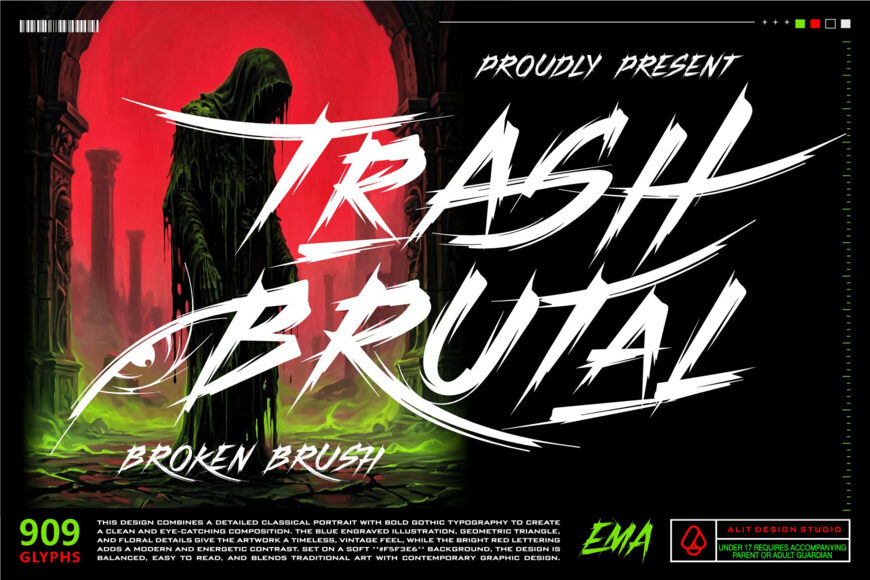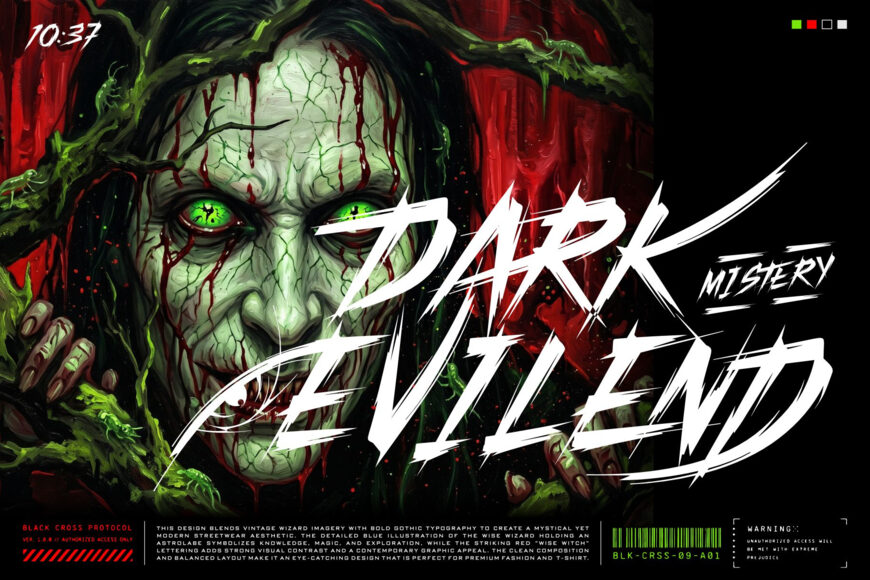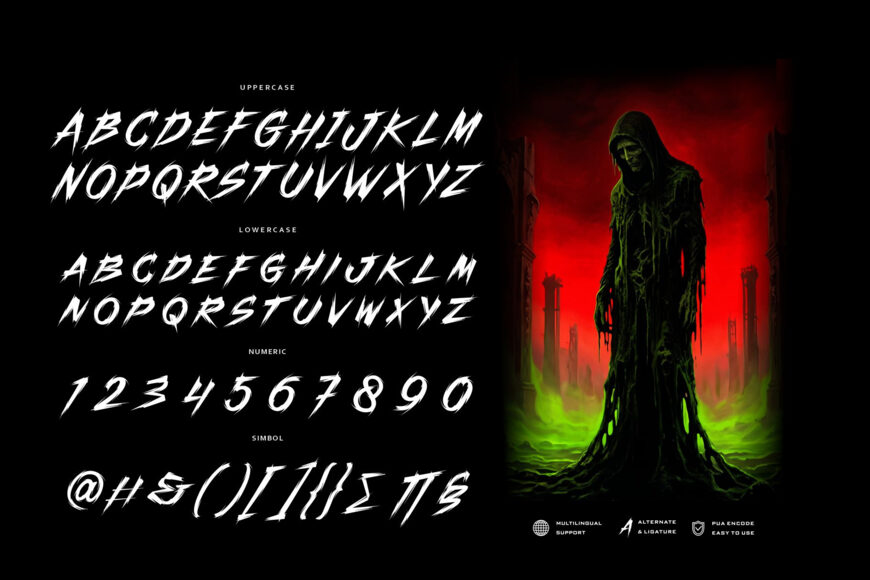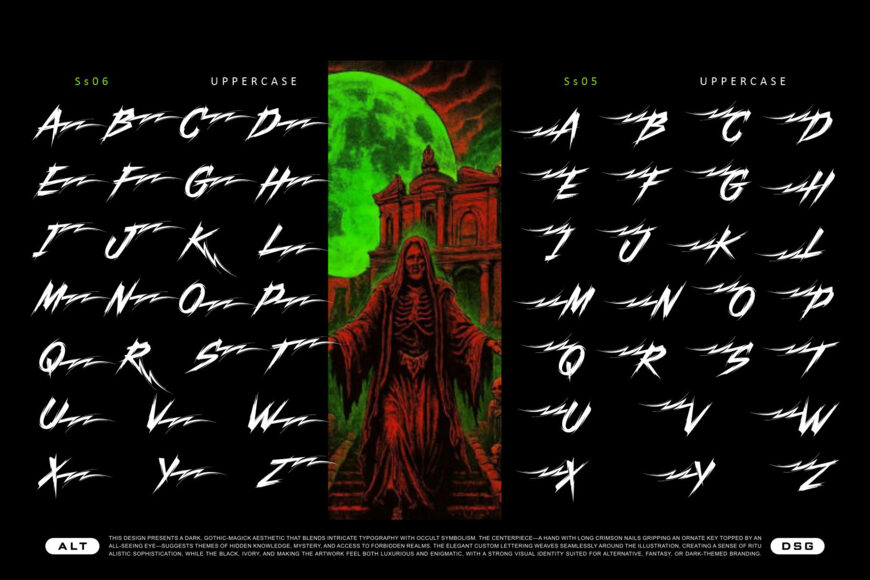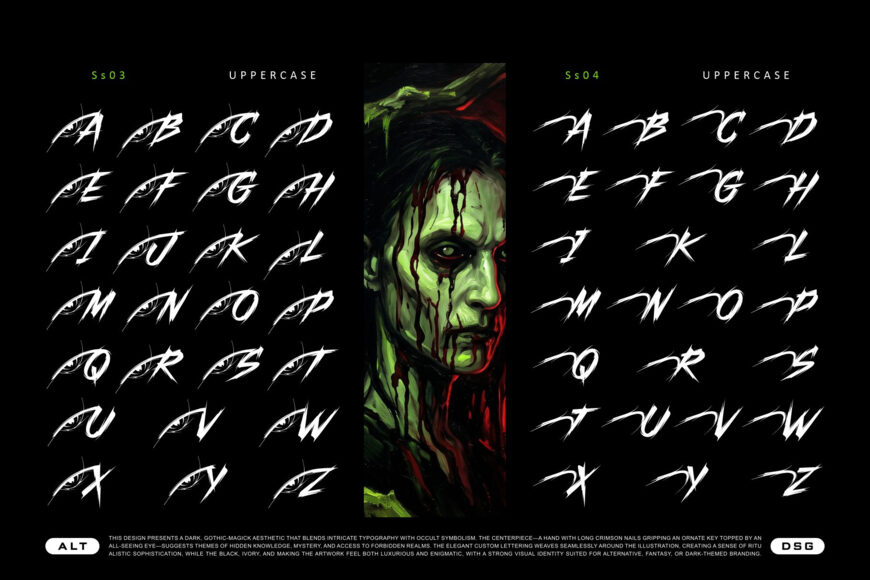
Unleash raw, untamed energy with Trash Brutal, a bold and aggressive brush typeface designed to make a commanding statement. Crafted with rough, expressive strokes and a rebellious character, this font captures the dark and intimidating essence of dry brushwork. Every letter features sharp edges and chaotic textures, leaving behind a visceral, high-impact visual presence that demands attention.
Whether you are designing underground streetwheavyear, metal or punk album artwork, spine-chilling horror movie posters, or edgy branding, this typeface delivers an ominous and forceful atmosphere. It features 968 glyphs, including a massive collection of stylistic alternates and ligatures.